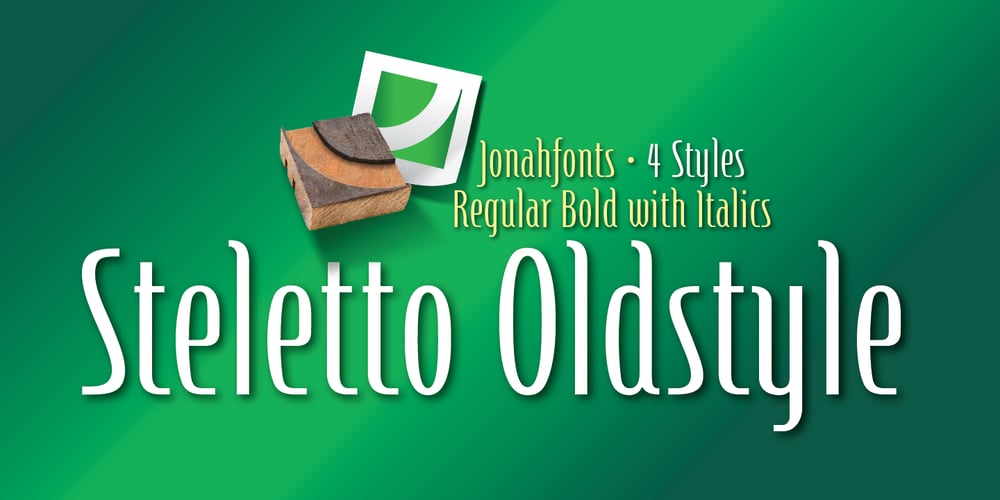
Steletto Oldstyle Font Family was designed by John Nahmias and published by Jonahfonts. Steletto Oldstyle contains 4 styles and family package options. Condensed Gothic. Great for tight-fitting headlines and other condensed titling situations such as headlines, ads, invitations, captions, packaging, bulletins, posters, and greeting cards.